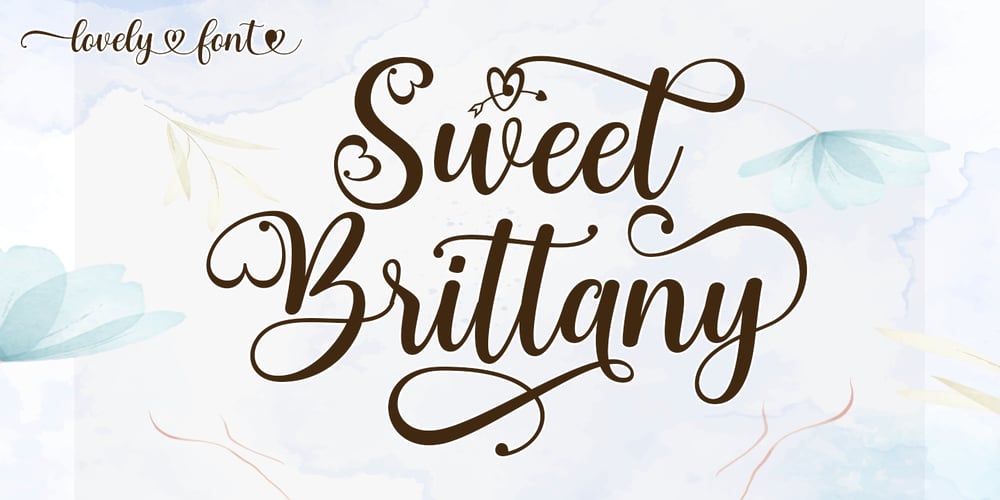
Sweet Brittany Script
Sweet Brittany Script font
Sweet Brittany Script Font Family was designed by Rizki Andika and published by Letterfreshstudio. Sweet Brittany Script contains 1 styles and family package options. Sweet Brittany Script! Fresh modern lovely font with decorative characters and dancing baseline. So beautiful on invitations such as crafts, greeting cards, branding materials, business cards, quotes, posters and other design concepts.Features:LigatureStyle setBasic Latin A-Z and a-zNumberInternational symbols includepunctuationfastenerThank you.